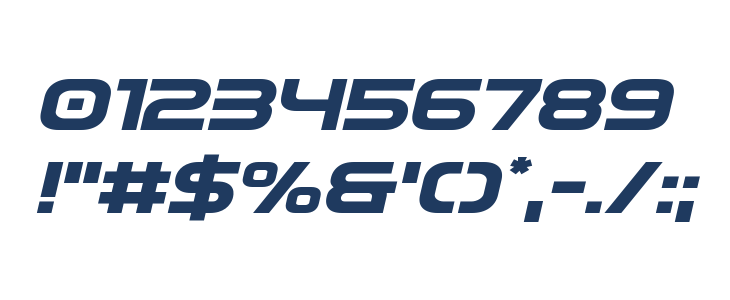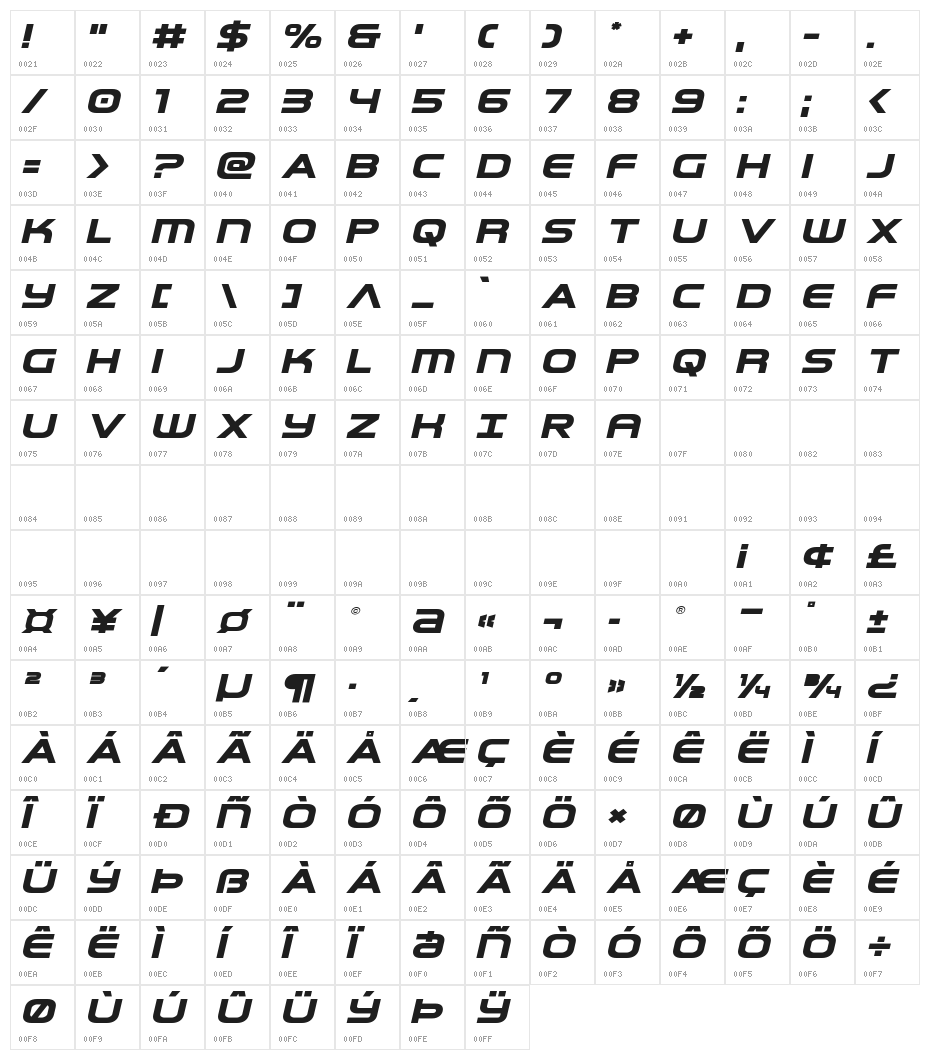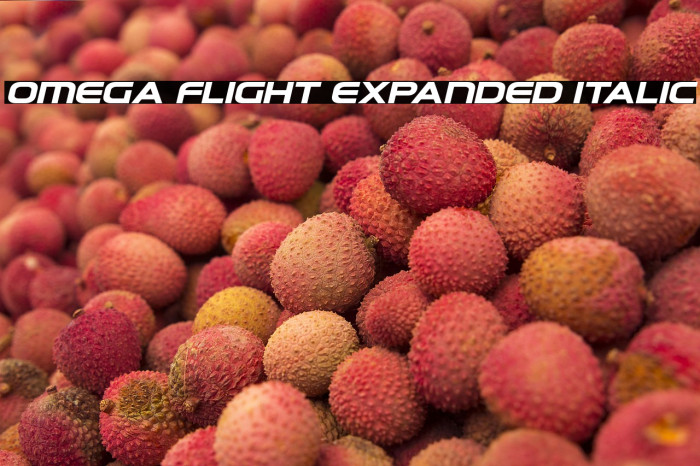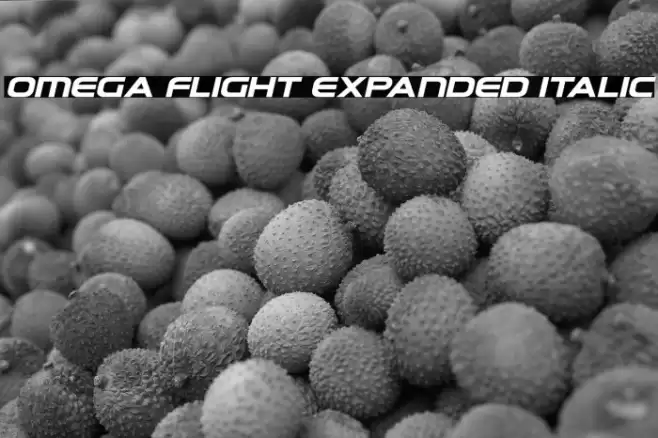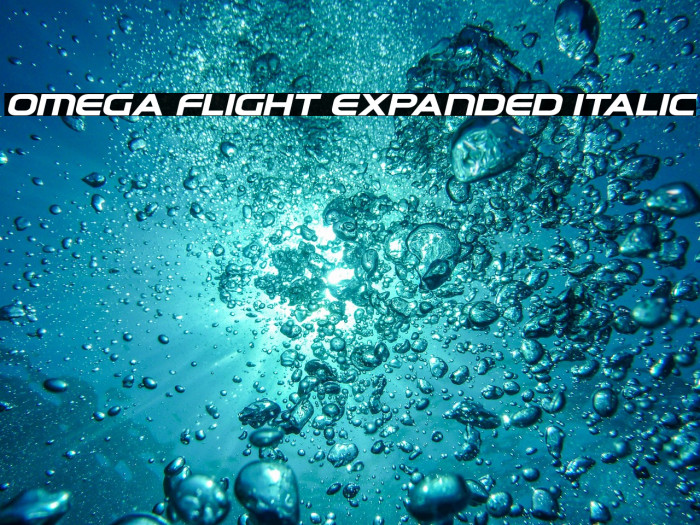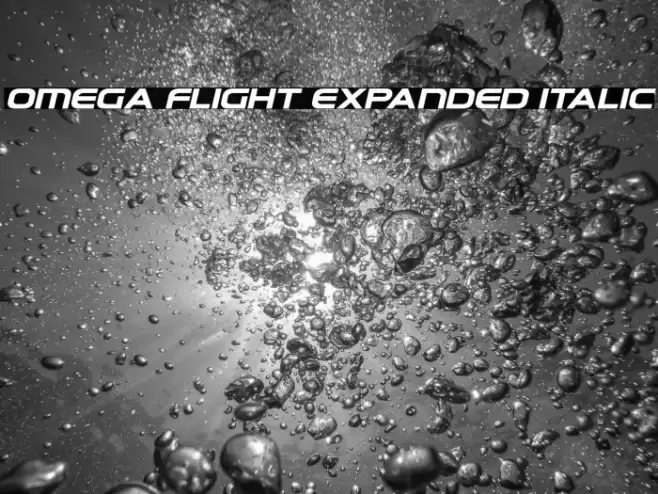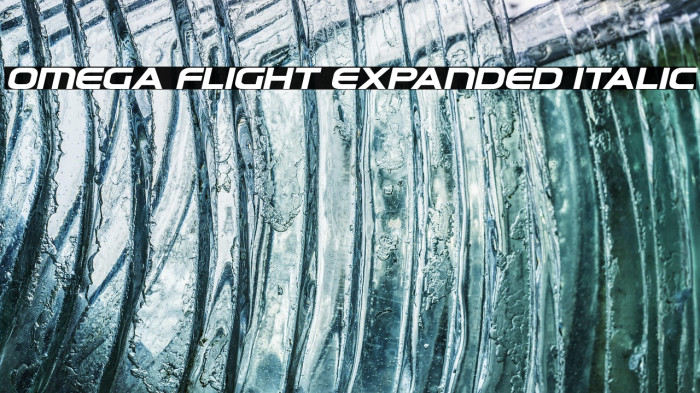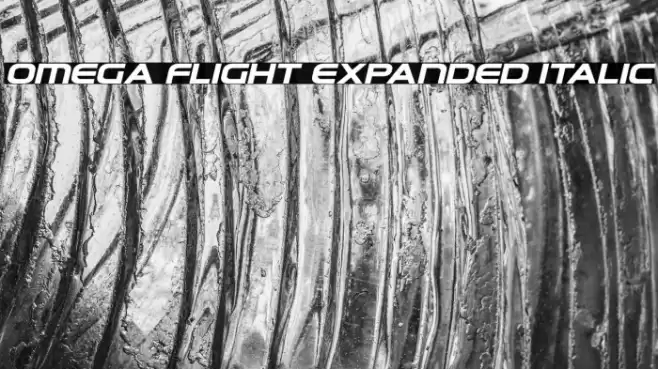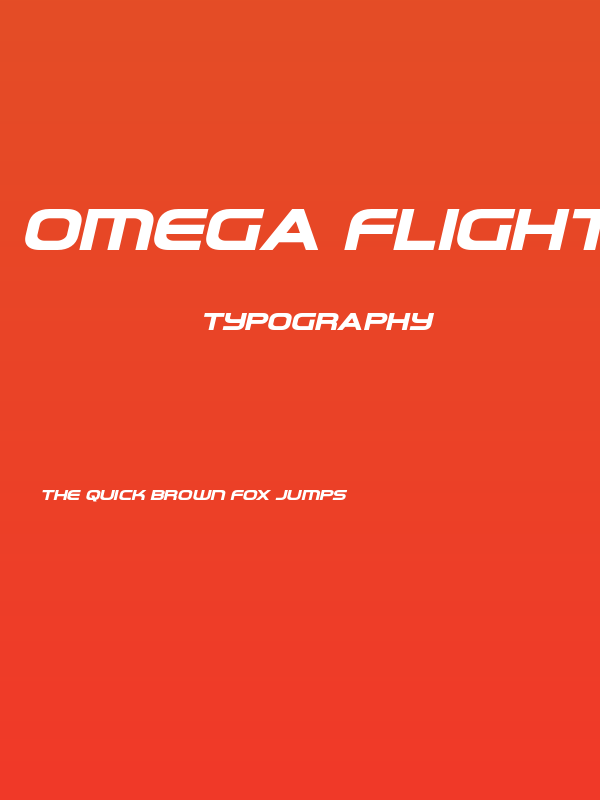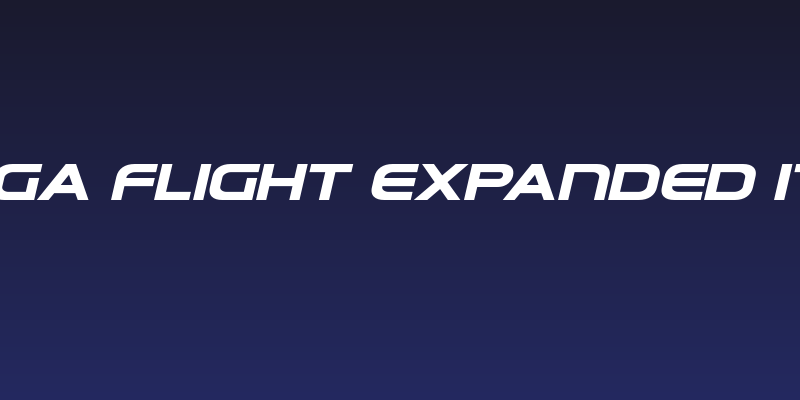
Omega Flight Expanded Italic Font
Omega Flight Expanded Italic Description
This font exhibits a modern and dynamic style with an italicized slant, giving it a sense of motion and speed. The characters are bold and expanded, providing a strong visual impact. The design features clean, sharp edges and a futuristic aesthetic, making it suitable for contemporary projects. The uppercase and lowercase letters maintain a consistent style, with a slight variation in width that adds to the font's unique character. The numerals and special characters are designed to match the overall theme, ensuring a cohesive look across all text elements.
| Proposed Projects | Ideal for technology branding, sports team logos, automotive advertisements, and sci-fi themed designs. |